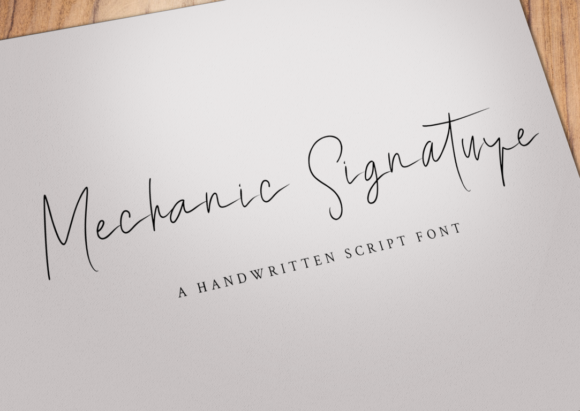
Welcome to the world of Mechanic Signature Font, where elegance and creativity find their perfect harmony! This captivating script font, born from the creative genius of loklike, is a heartfelt tribute to the art of calligraphy, transporting you to a realm of timeless beauty and sophistication.
Step into the world of Mechanic Signature Font, where every letter dances along the baseline with grace and fluidity, like a ballet dancer pirouette on a grand stage. Its delicate strokes and sweeping curves evoke a sense of romance, making it the perfect choice for crafting heartfelt messages, elegant invitations, or adding a touch of whimsical charm to your designs.
Unleash your creative potential with Mechanic Signature Font, a versatile masterpiece that caters to a wide spectrum of design endeavors. Whether you're a seasoned graphic designer or just starting to explore the world of typography, this font is your gateway to creating stunning visuals that leave a lasting impression.
With Mechanic Signature Font, you gain access to a treasure trove of possibilities. Craft mesmerizing logos that exude sophistication, create eye-catching social media posts that captivate your audience, or design enchanting wedding invitations that speak volumes about your love story. The possibilities are endless, only limited by your imagination.
As a PUA-encoded font, Mechanic Signature Font grants you the freedom to explore a world of glyphs and ligatures with effortless ease. Unleash your creativity and let your designs blossom with intricate details and stunning flourishes.
Embrace the beauty of Mechanic Signature Font today and embark on a creative journey that will elevate your designs to new heights. Experience the magic of calligraphy and let your words dance with grace and style.